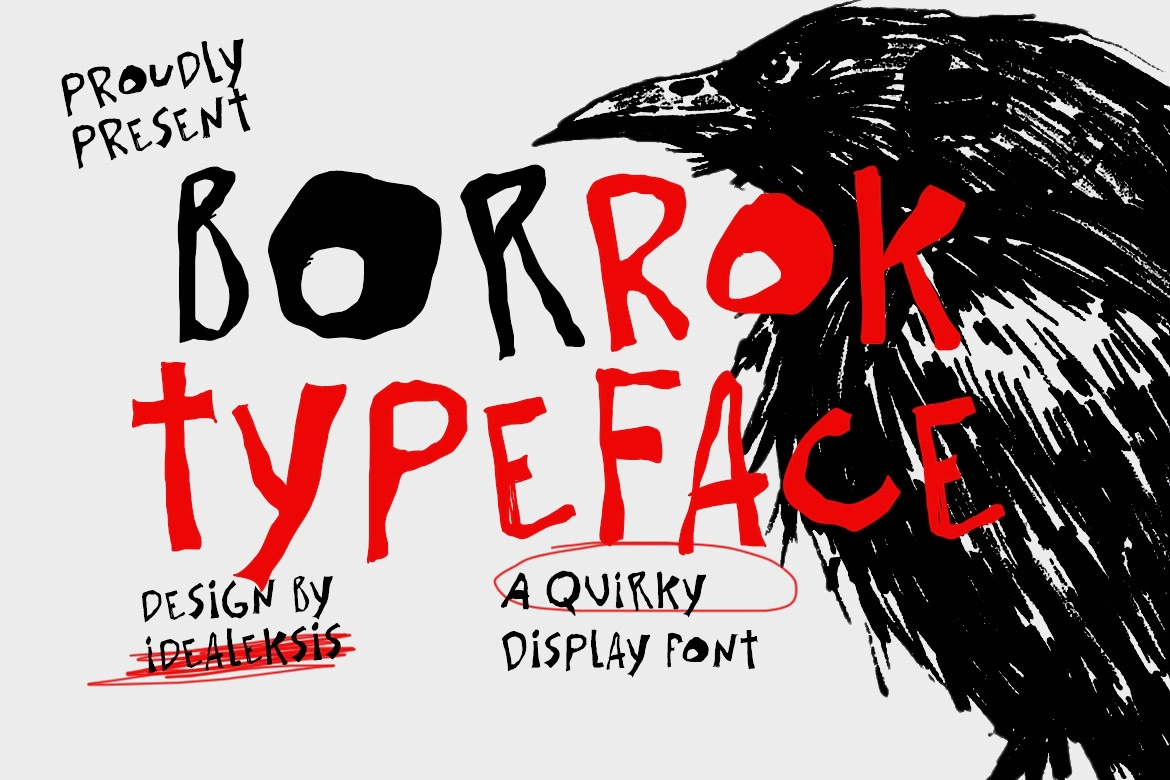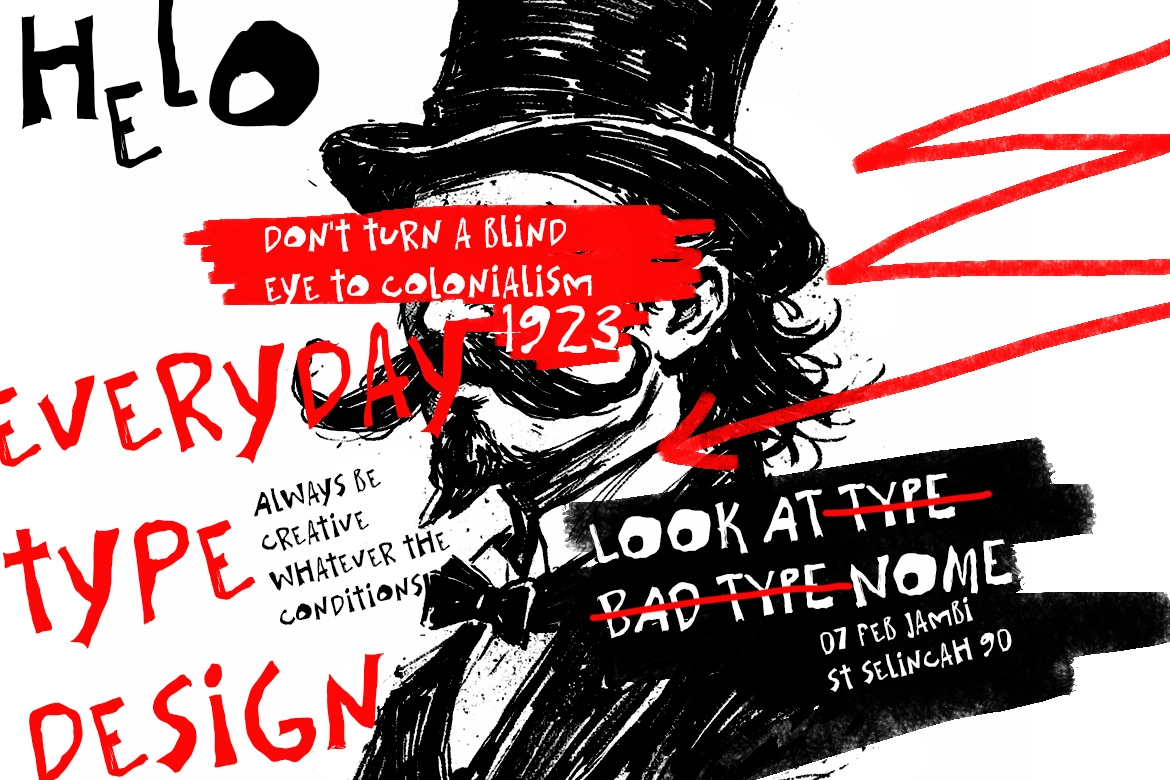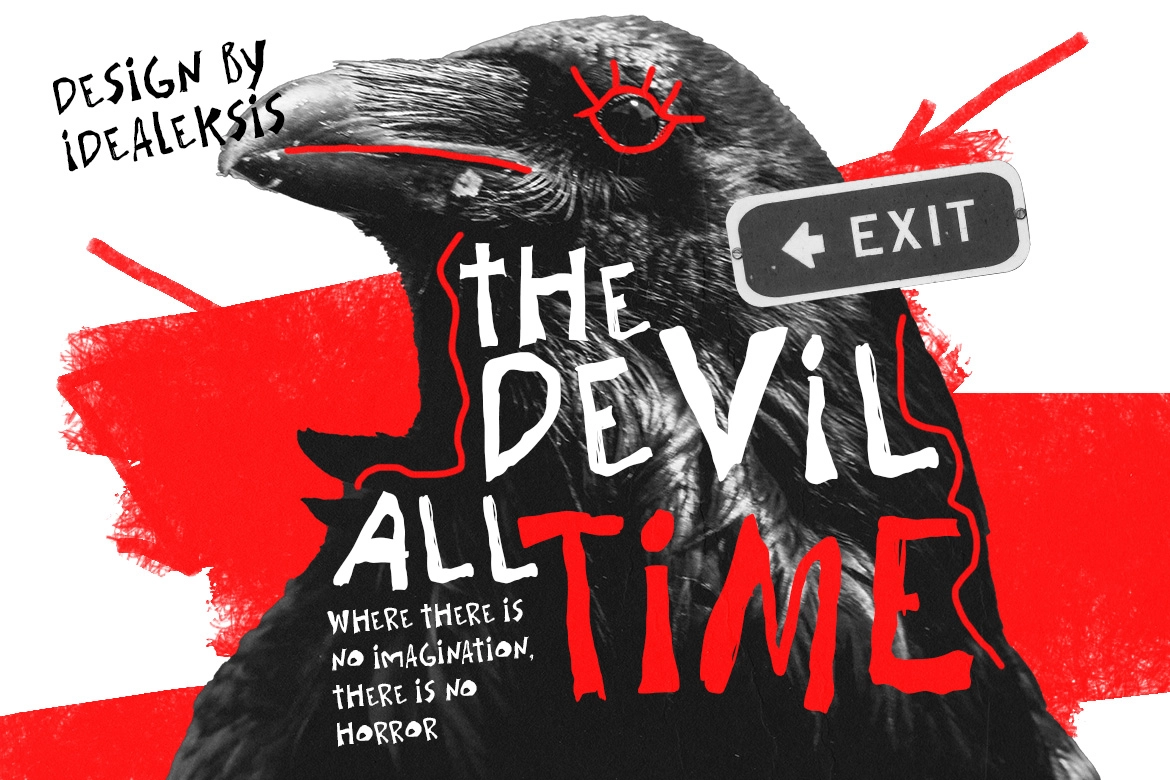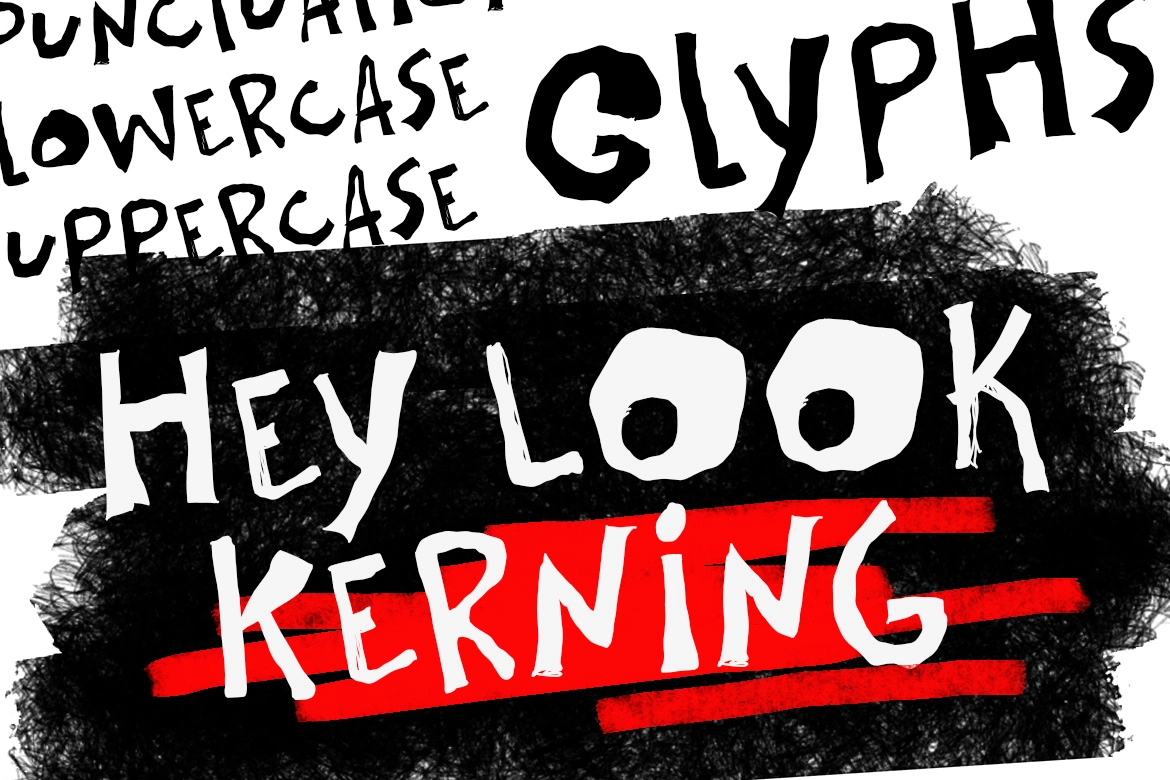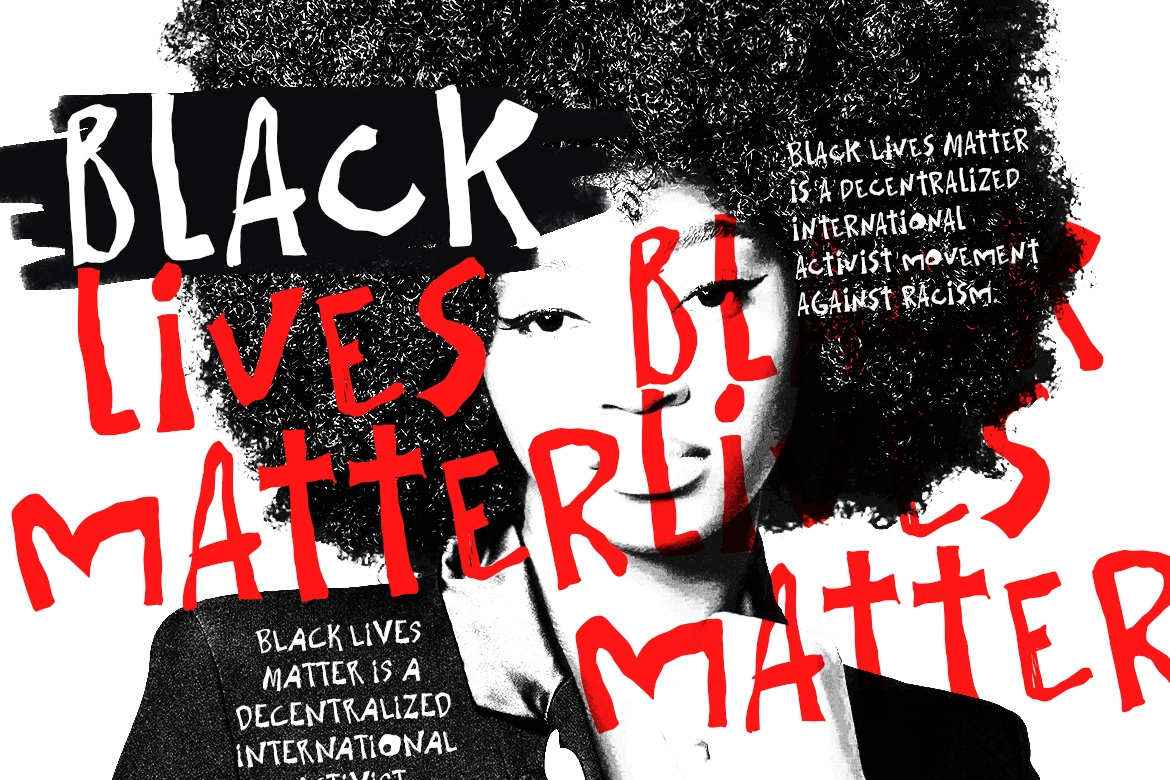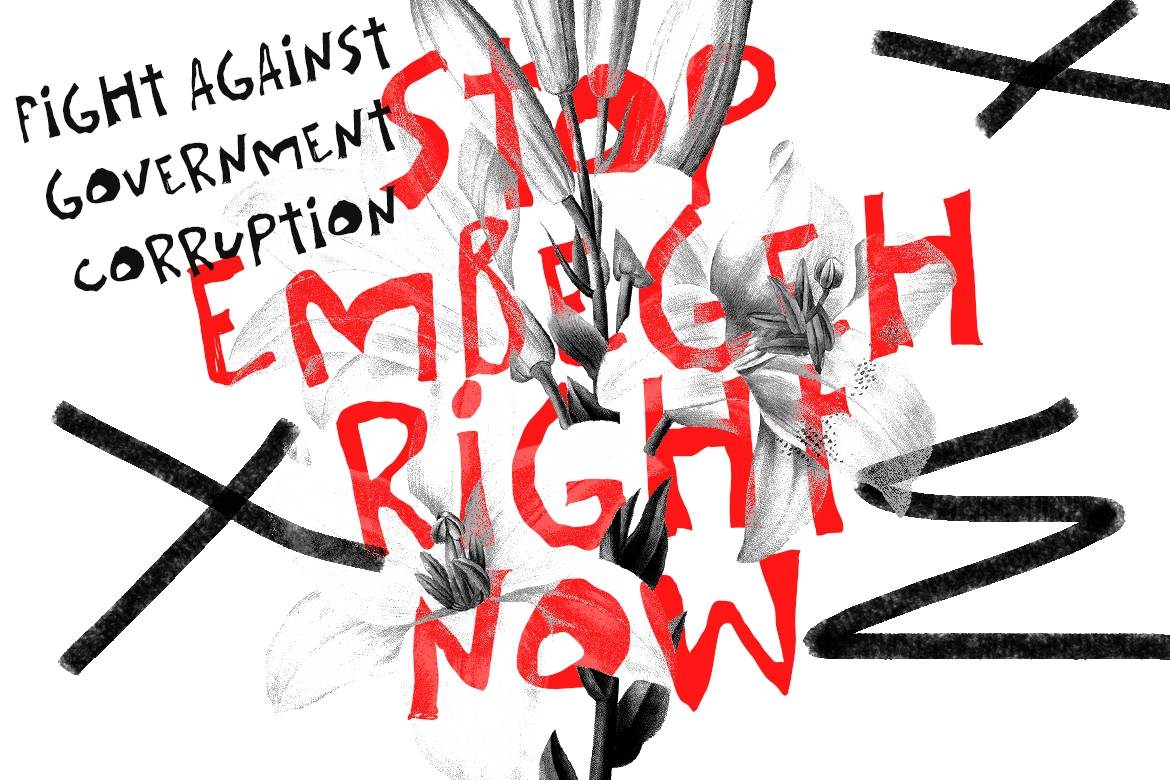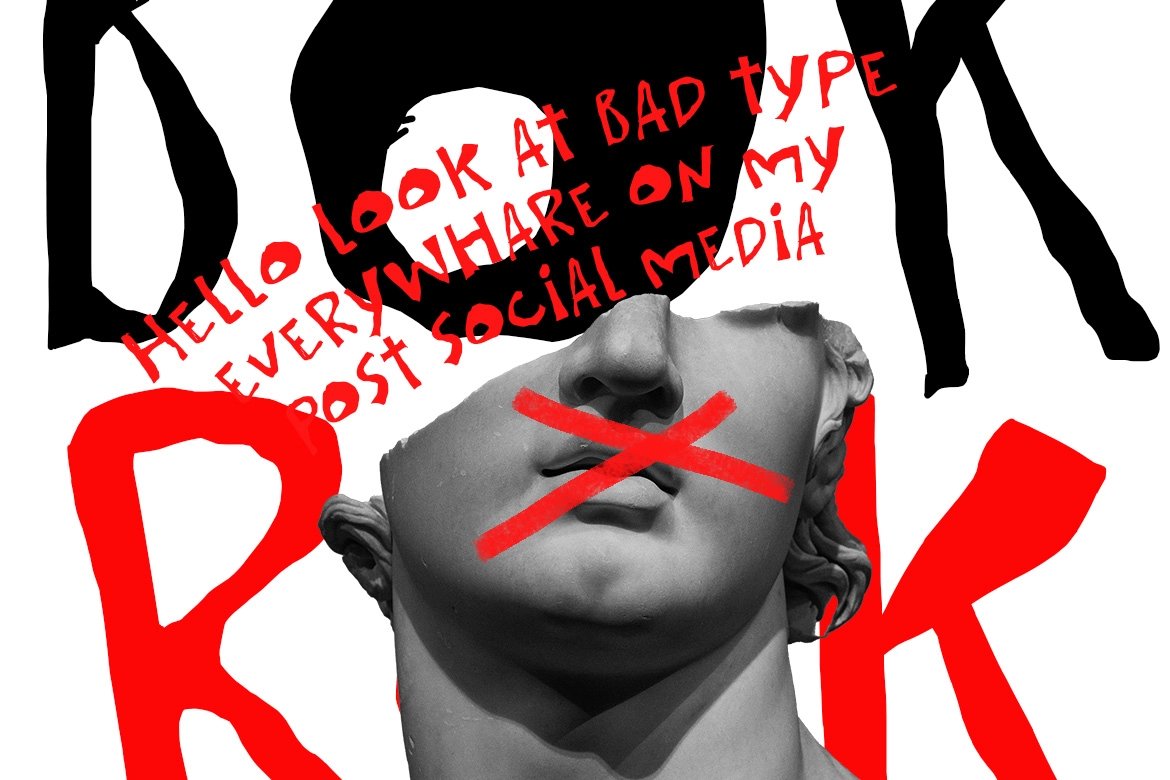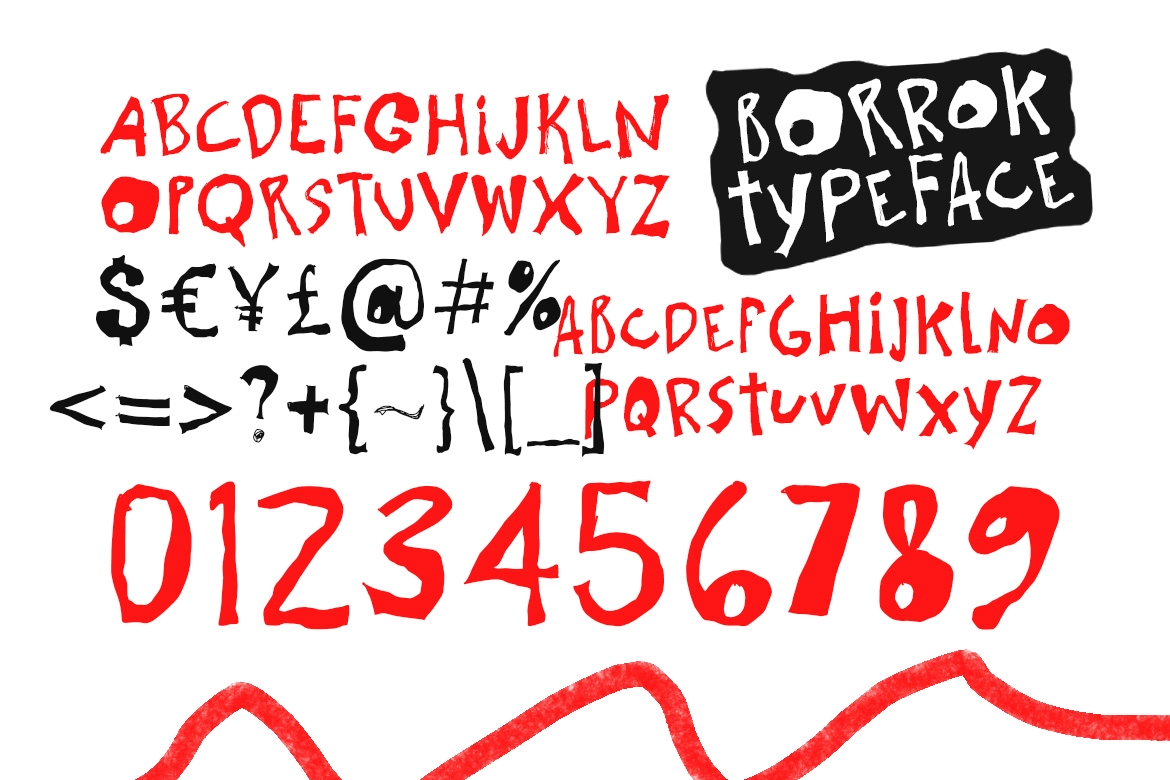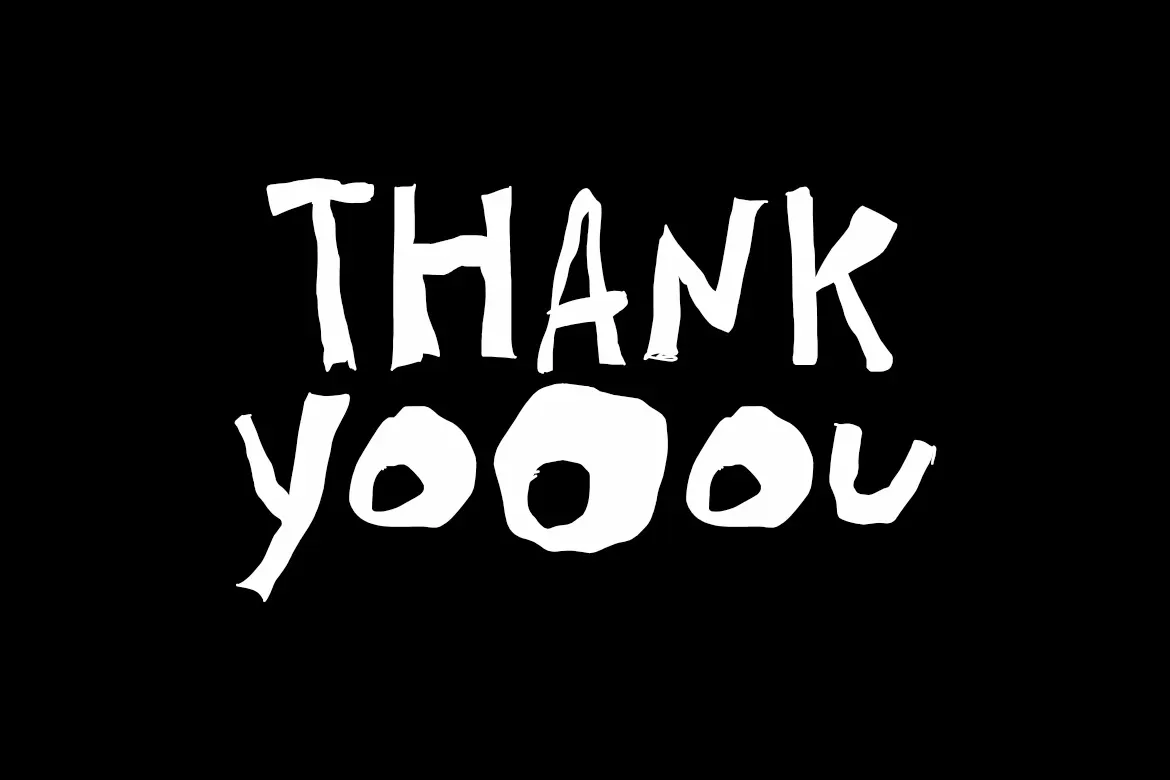
Borrok - Grunge Hand-drawn Font
Borrok - Grunge Handwritten Font is a raw and expressive display typeface that captures the spirit of rebellious, hand-drawn lettering. Built with rough strokes and irregular forms, it delivers a gritty visual impact that feels bold, unpolished, and full of attitude.
Defined by jagged edges and uneven stroke weight, Borrok embraces imperfection as a design strength. Each letter carries a sense of urgency and movement, creating a dynamic composition that instantly draws attention. Its chunky, high-contrast forms ensure strong visibility while maintaining a distinctly underground aesthetic.
Perfect for projects that demand character and edge, Borrok works exceptionally well in posters, album artwork, streetwear branding, and experimental design. It brings a fearless, anti-establishment tone that stands out in both print and digital formats.
- Handwritten Grunge Style
- Rough Textured Letterforms